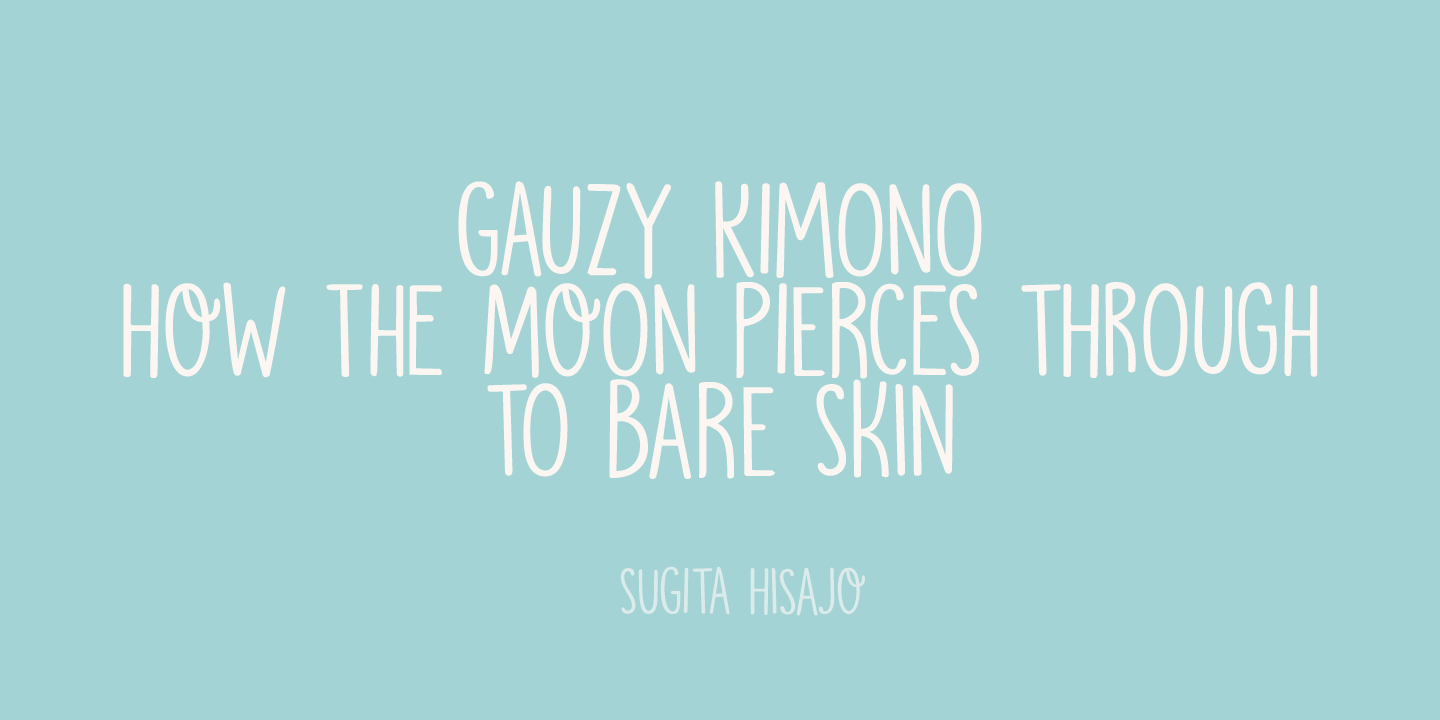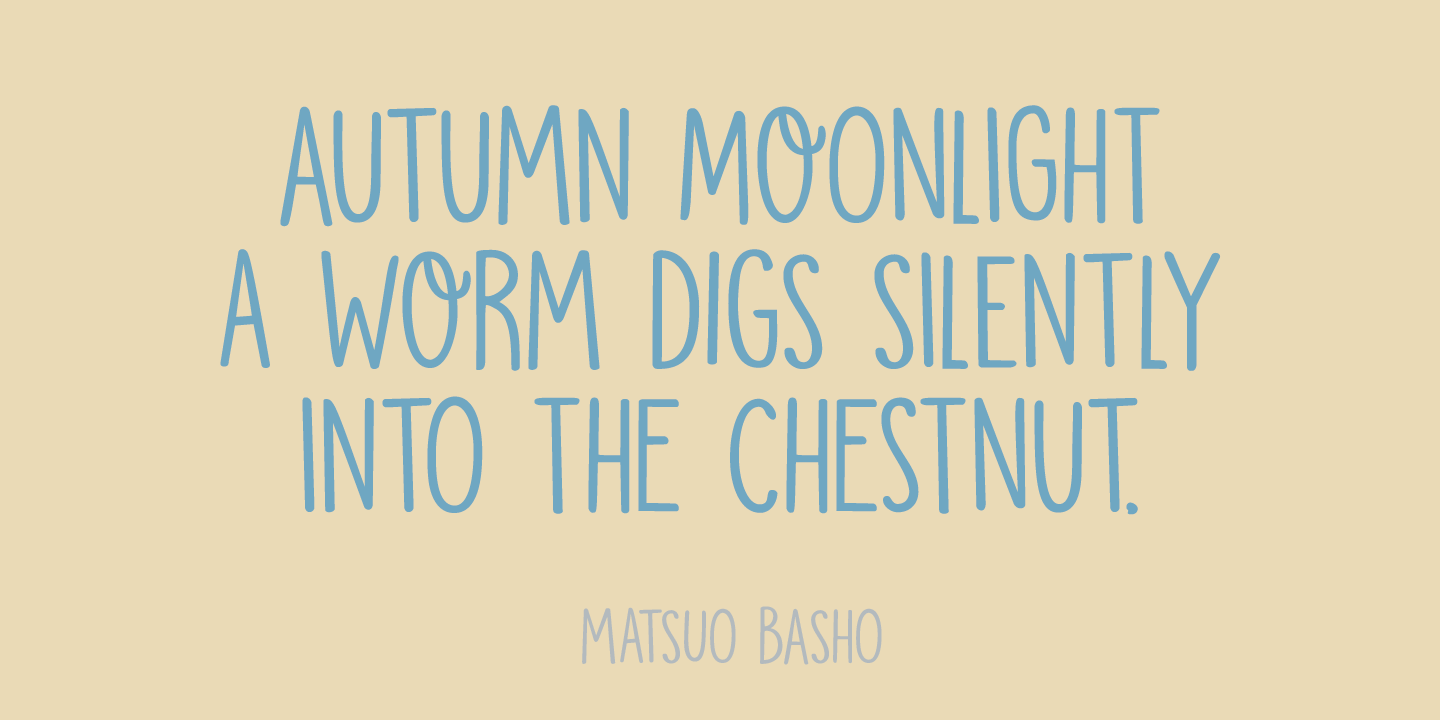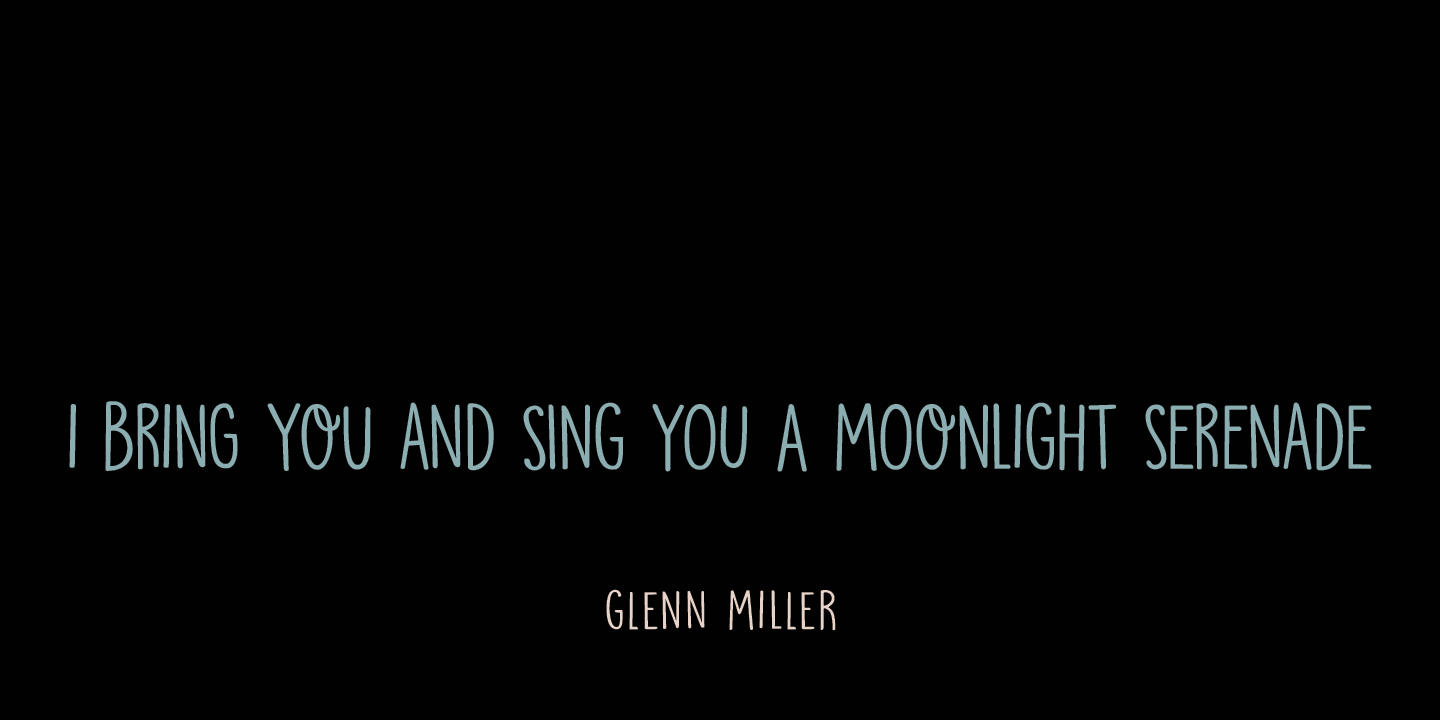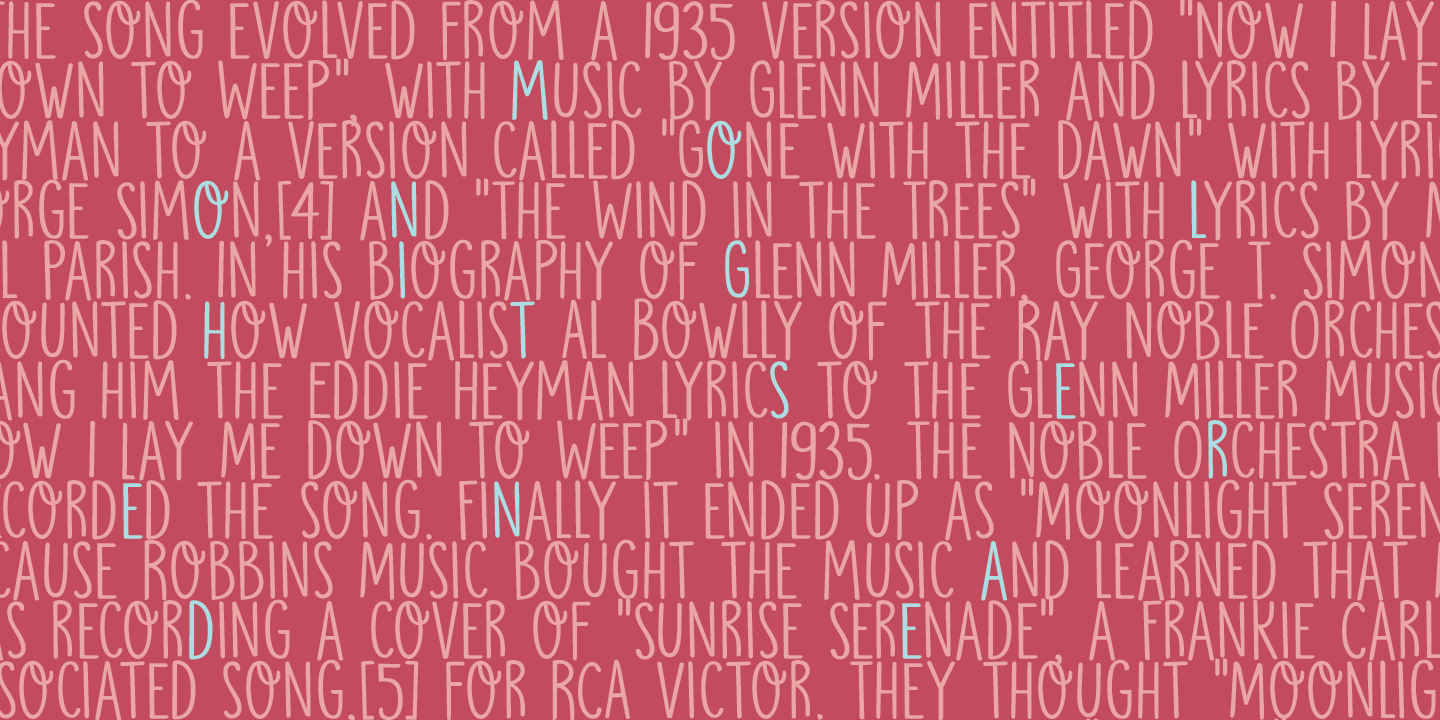
Moonlight Serenade
Moonlight Serenade is a 1939 song composed by Glenn Miller, with lyrics by Mitchell Parish. Moonlight Serenade font is an all caps affair - very legible, very recognizable and very useful. Upper and lower case differ slightly and are quite happy to mingle. In the words of Mitchell Parish: I bring you and sing you a Moonlight Serenade! Comes with a universe of diacritics.